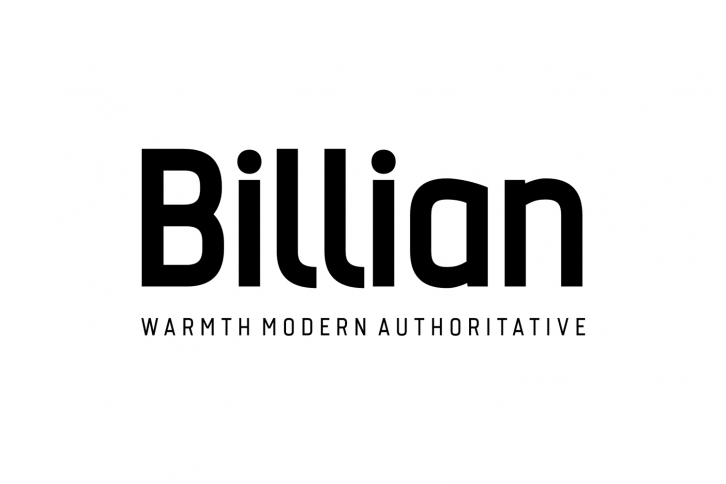
Billian is a gorgeous font that was realeased on September 2, 2019. The font can be used in many style contexts and design environments. Perfect for invitations, magazines, websites, logos, and more! It was designed by Arthy and the file size is 2.47 MB. Thanks for checking out this font!